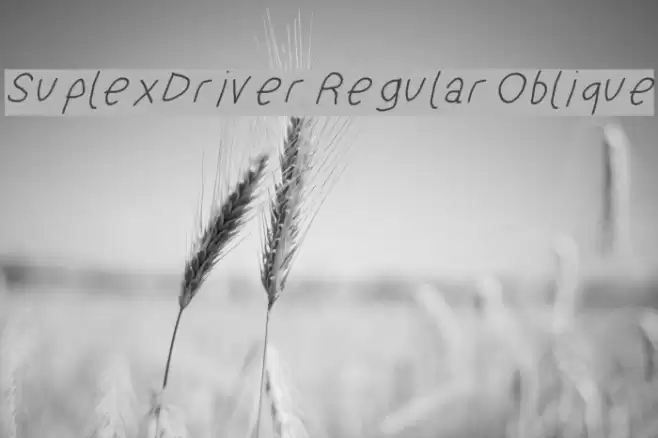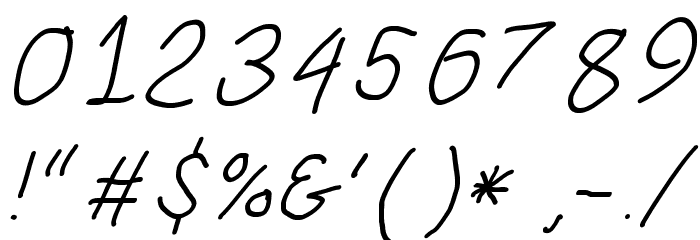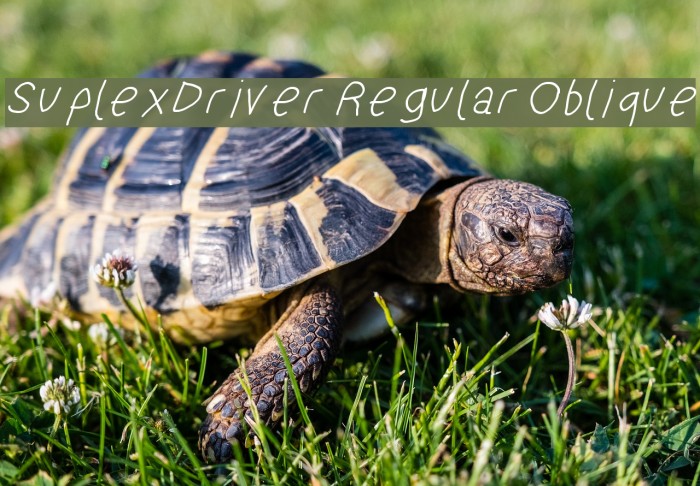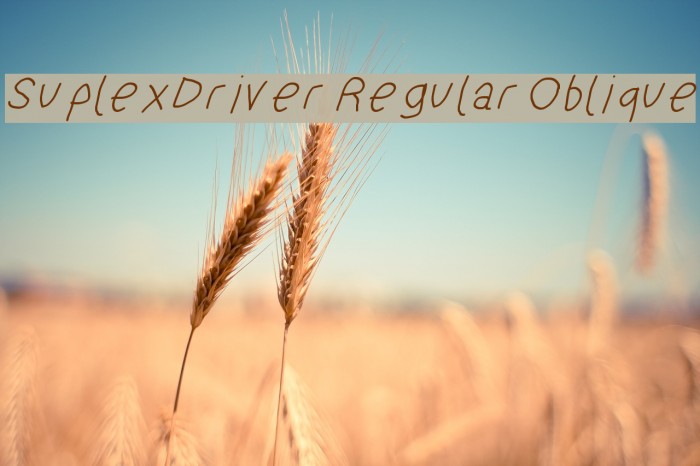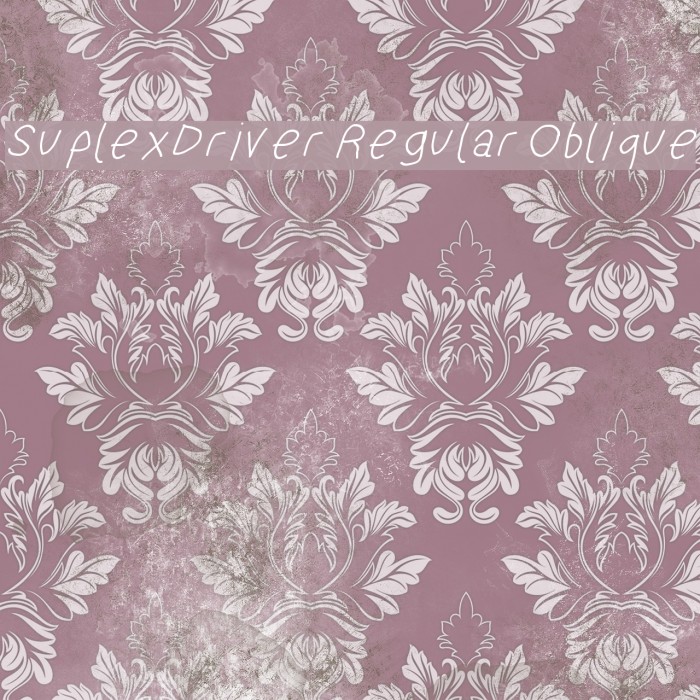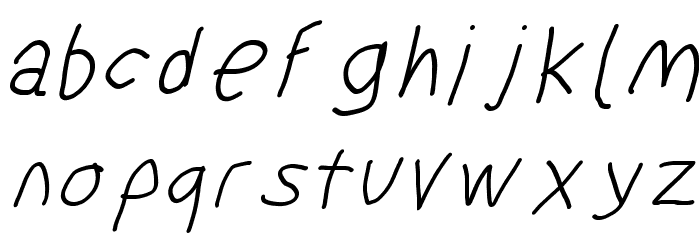
SuplexDriver Regular Oblique Font
SuplexDriver Regular Oblique Description
This font features a casual, handwritten style with a slight oblique slant, giving it a dynamic and informal appearance. The characters are crafted with a consistent stroke width, maintaining a uniform look across both uppercase and lowercase letters. The numerals and special characters follow the same style, ensuring coherence throughout. The overall design is approachable and friendly, making it suitable for projects that require a personal touch. The spacing between characters is normal, allowing for easy readability while retaining its unique handwritten charm.
A casual, handwritten font with an oblique slant and consistent stroke width from Handwritten fonts.
- Proposed Projects: Ideal for personal notes, informal invitations, creative projects, and casual branding.
- Overall Style: Casual
- Use Case: Informal text, Creative projects, Personal notes